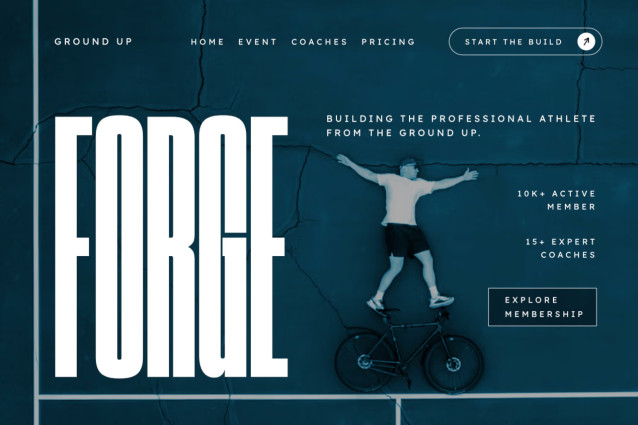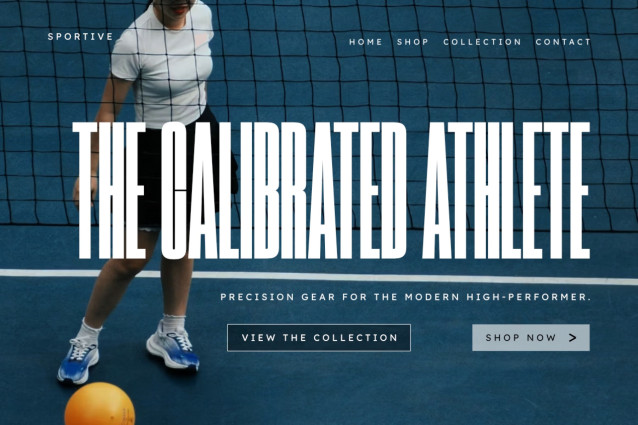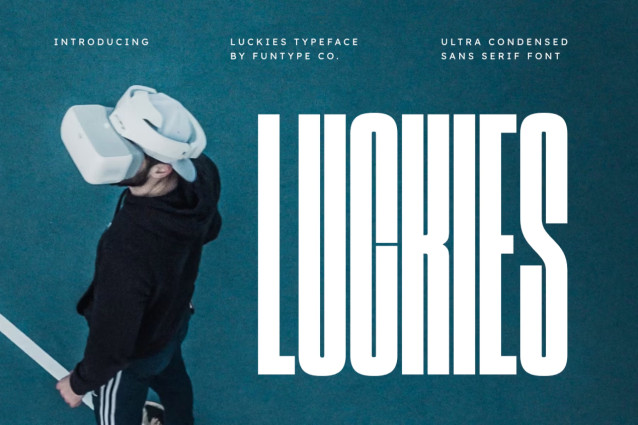
Luckies Font
Luckies is a towering and powerful modern ultra-condensed sans serif font designed for high-impact and precise professional typography. Featuring an extremely narrow geometric structure and heavy, clean block lines, this font is perfect for strong headlines, futuristic technology branding, sports team logos, and high-impact digital posters.
Its confident, tall, and perfectly balanced layout gives your visuals a striking, advanced, and highly sophisticated appearance. Provided in OTF and TTF formats for seamless use across all professional graphic design and merchandise printing platforms.